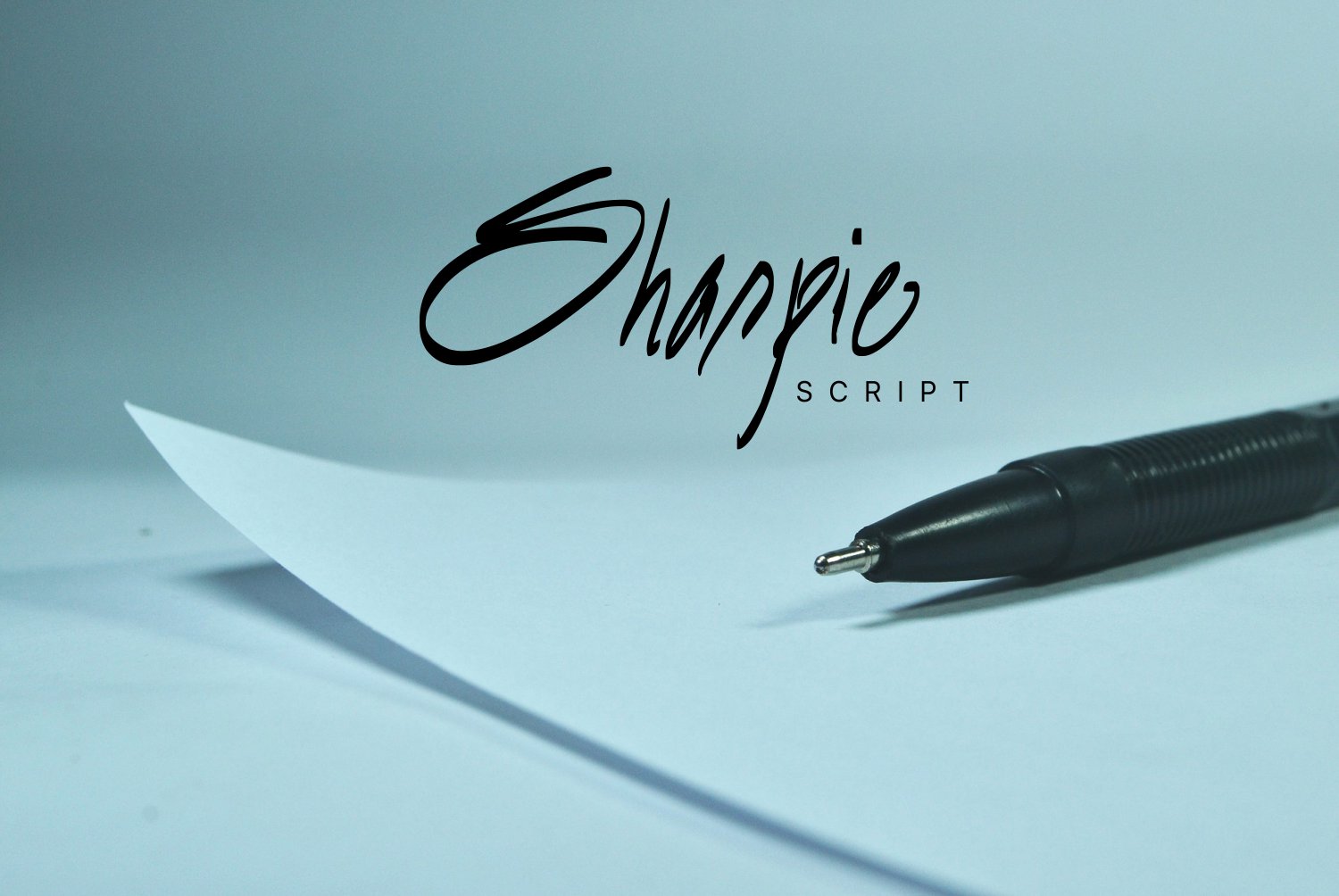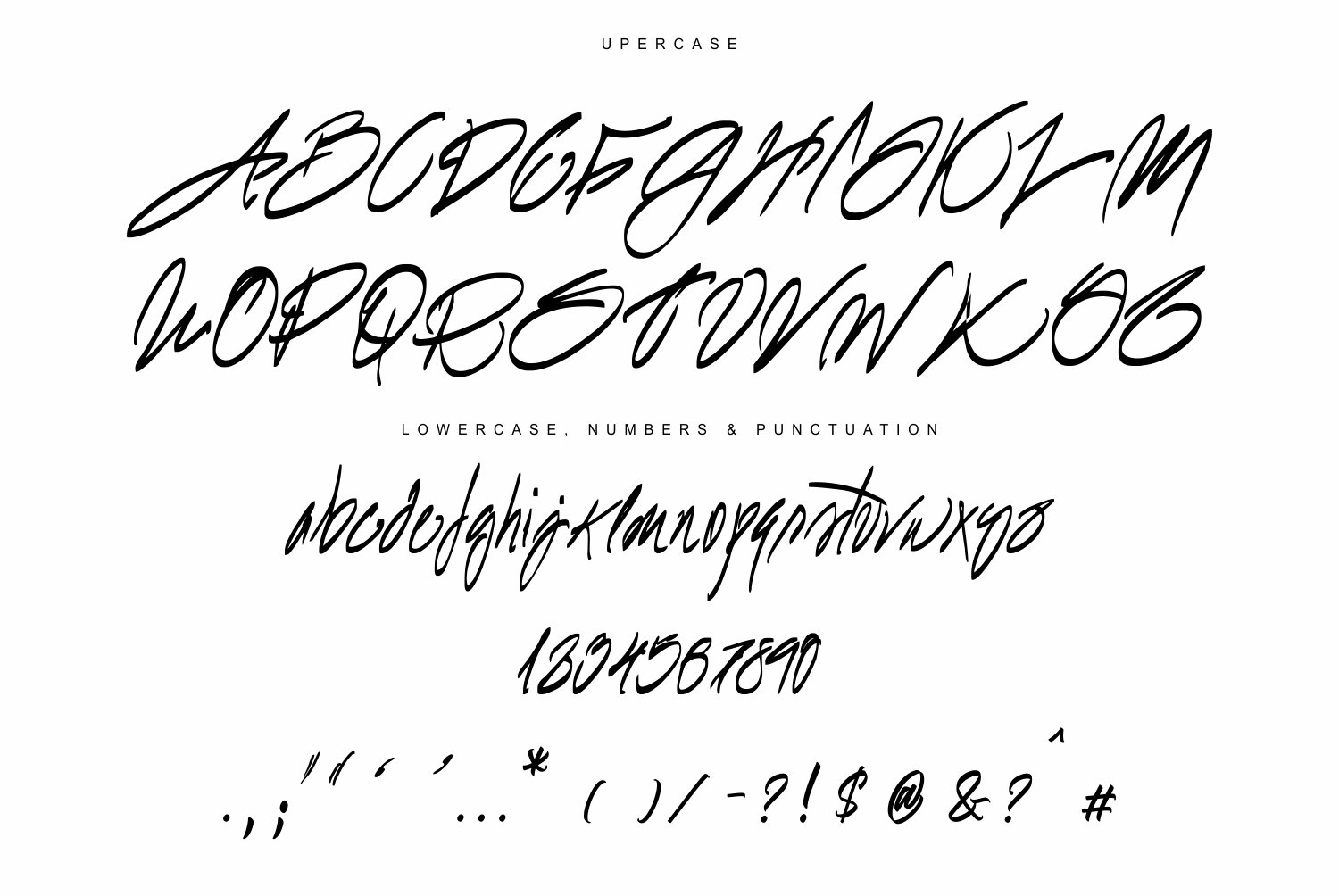
Sharpie Font
About Sharpie Font
Meant to emulate the feel and look of writing with a marker, Sharpie is a beautiful and laid back, making it a great option for adding a personal touch to your designs.